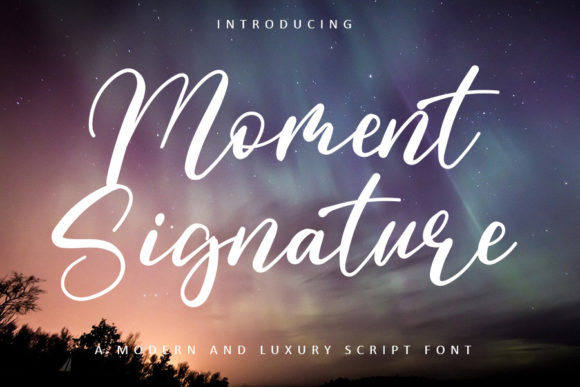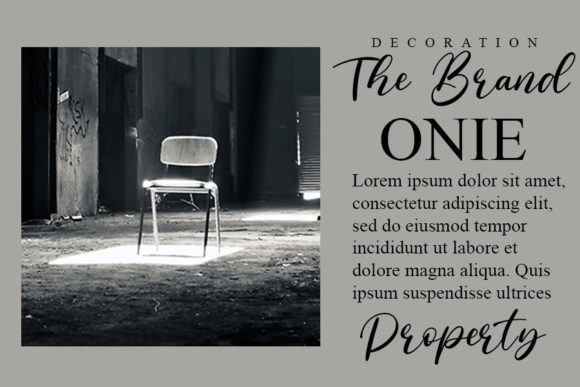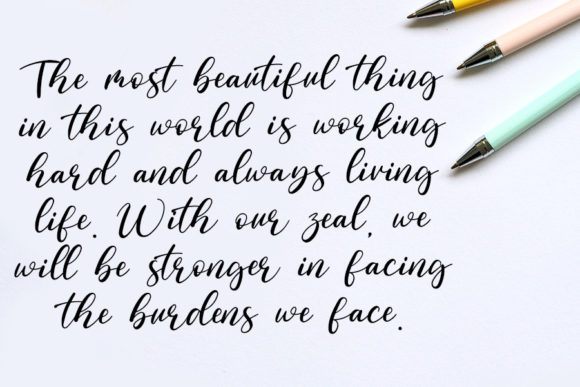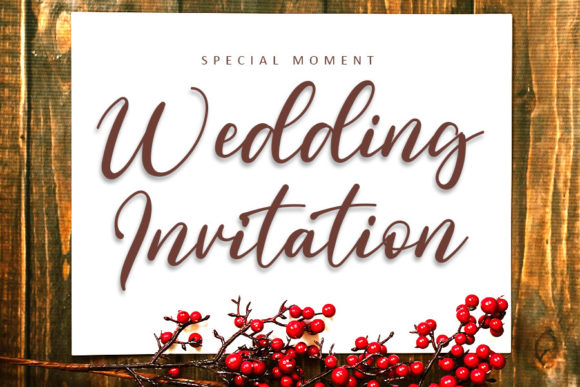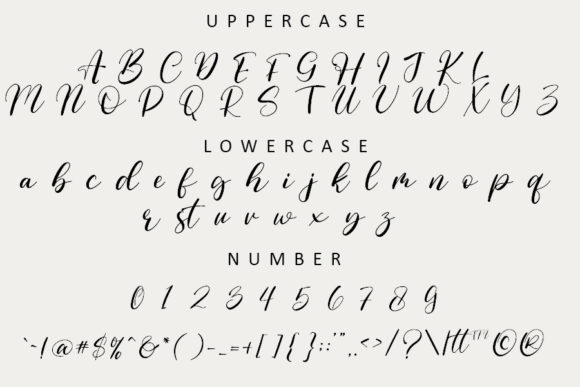
Moment Signature Font
About Moment Signature Font
Moment Signature is a beautiful and refined script font. It has a classy, elegant and modern look that can be used for logos, branding, invitations, stationery, wedding designs, social media posts, and much more!